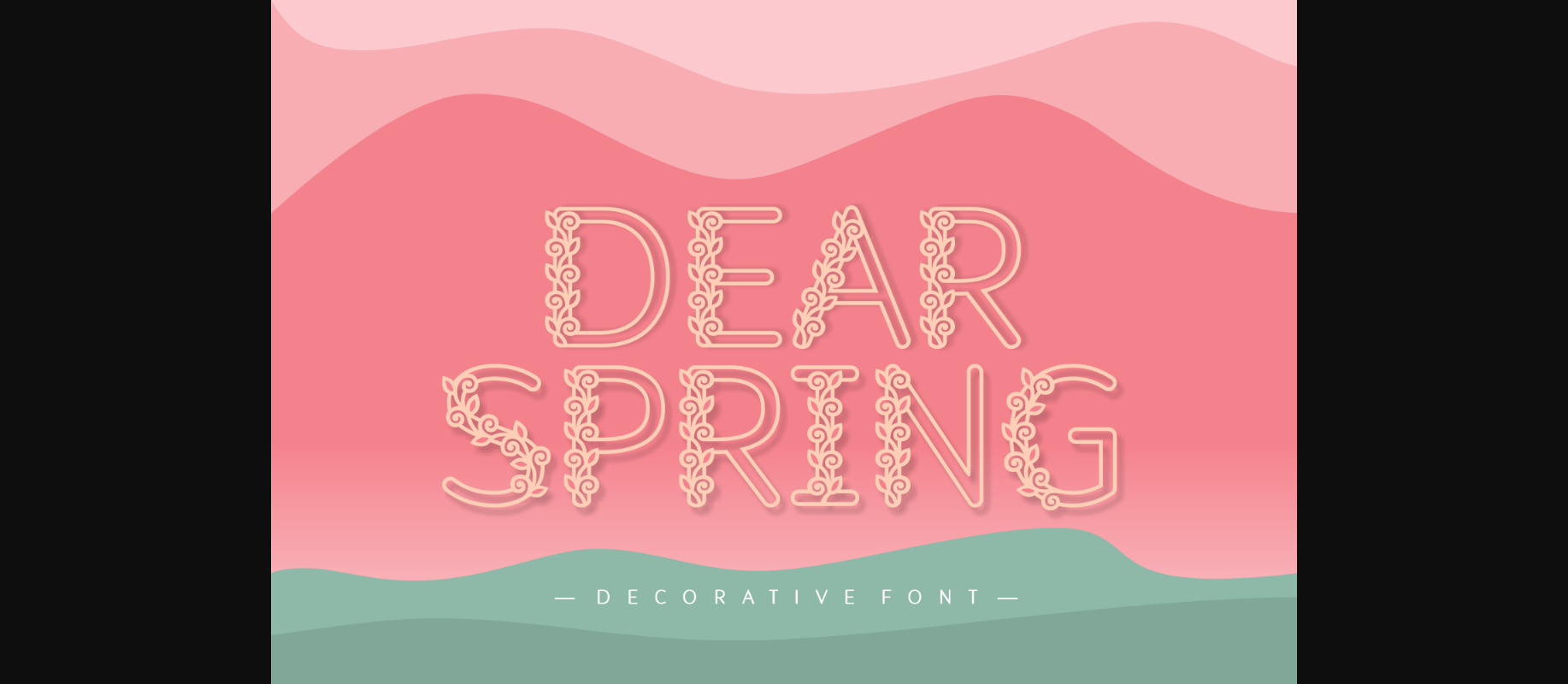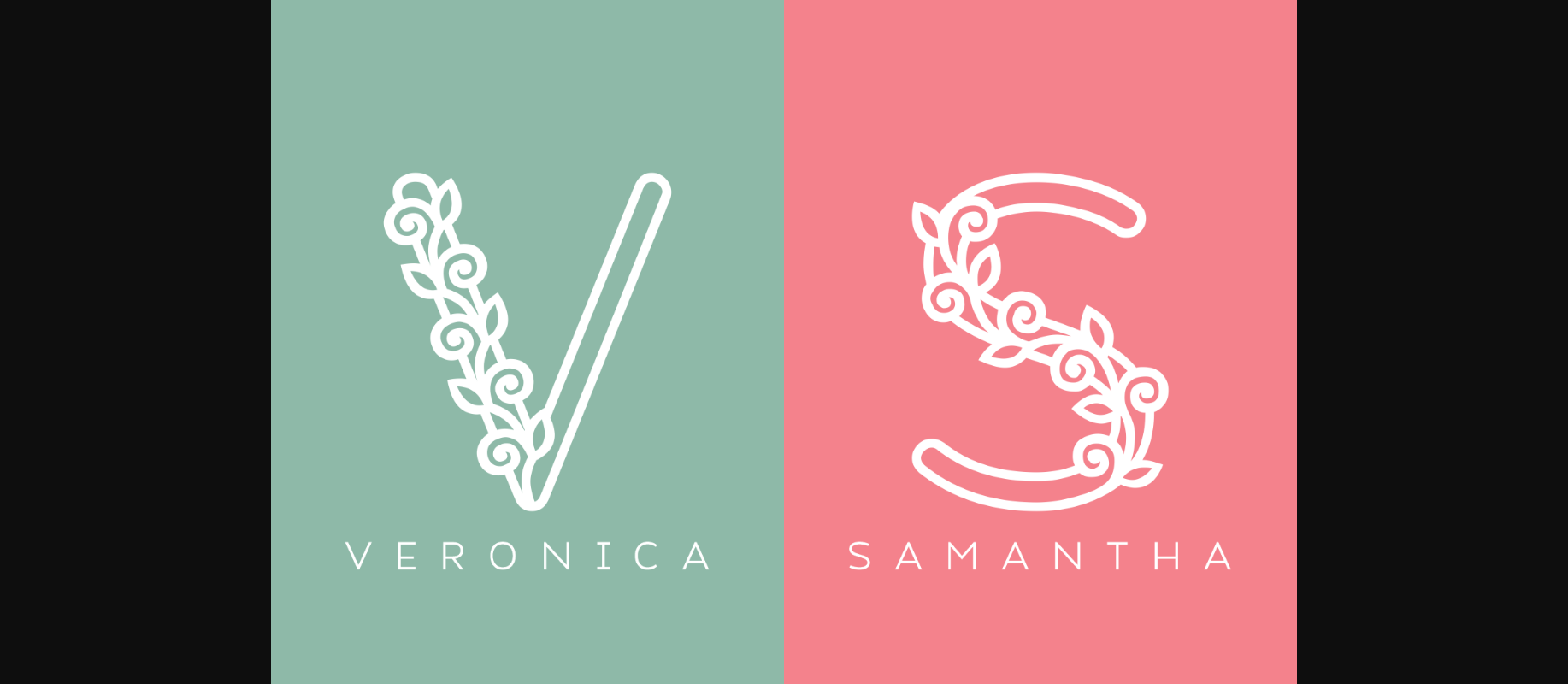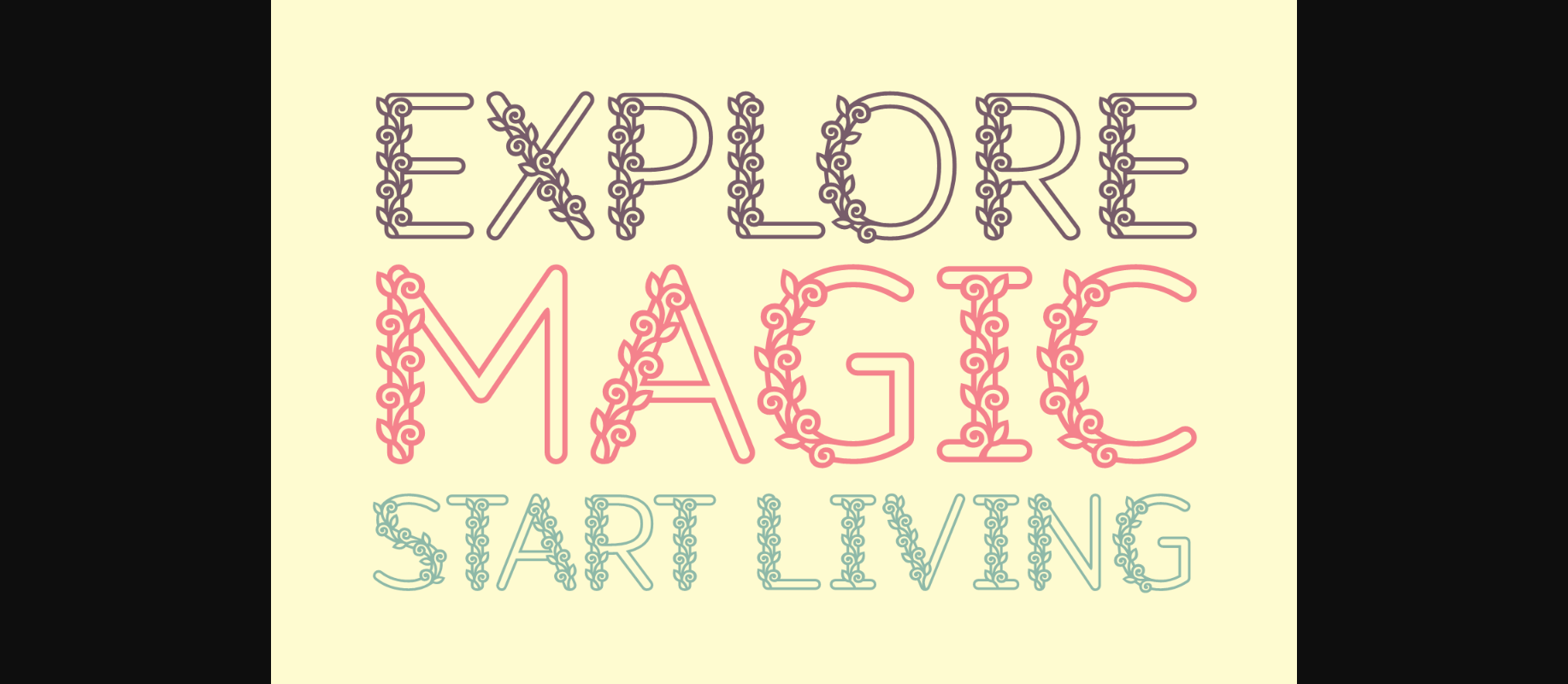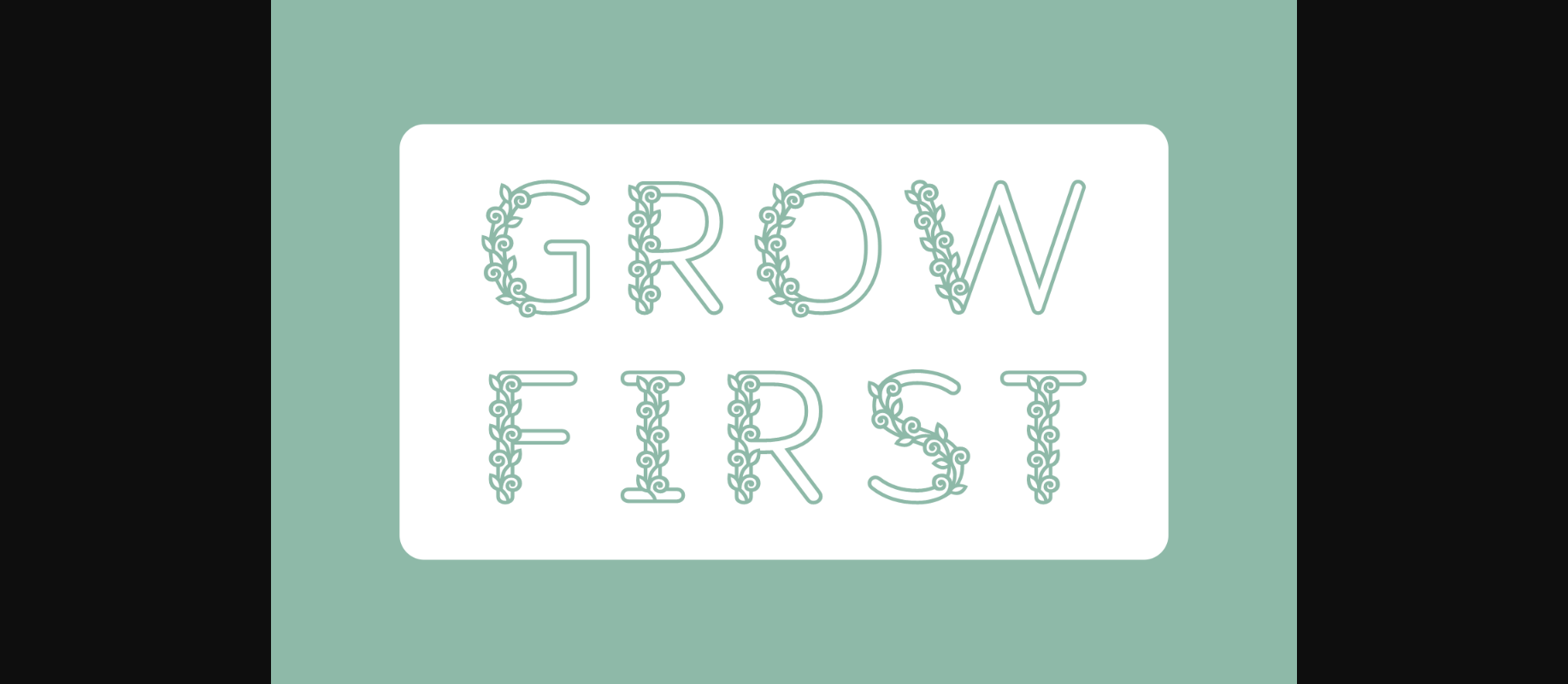
Dear Spring Font
About Dear Spring Font
Dear Spring is a charming decorative font. Fall in love with its authentic feel and use it to create gorgeous invitations, beautiful stationary art, eye-catching social media posts, and cute greeting cards.